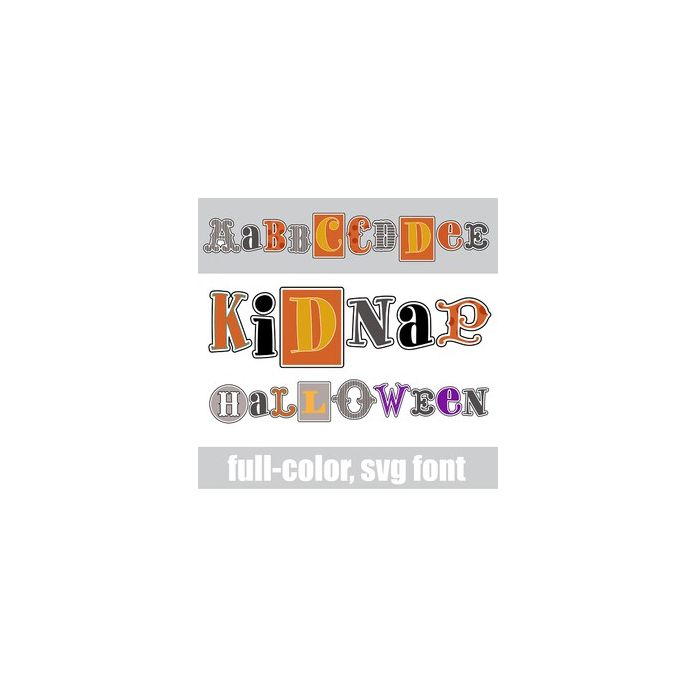
This fun font features a fun Halloween palette and a mix of font styles. There is an alt case w/ additional colors you can access through your system or Silhouette's glyph map.